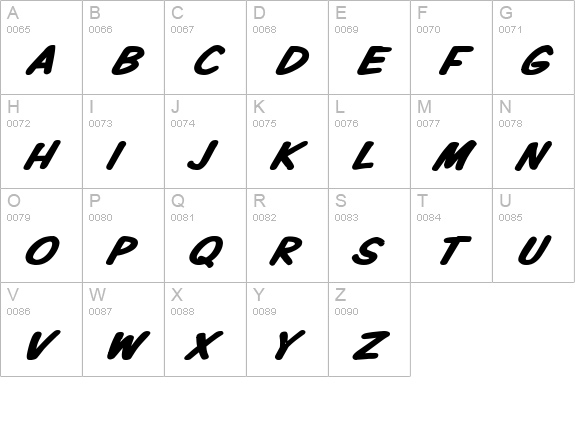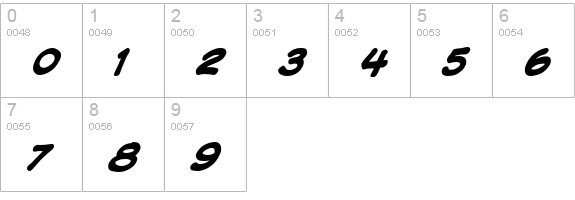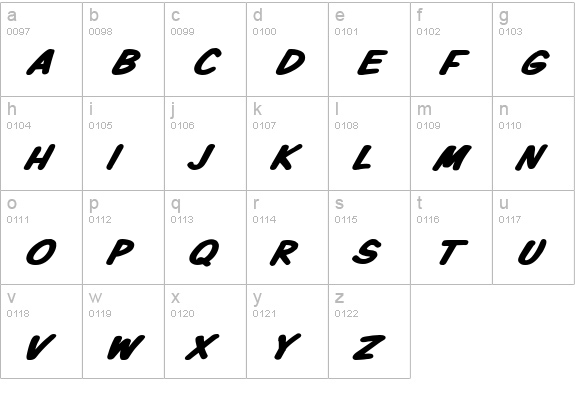
VTCKomixationSCBoldItalic Font Details
VTCKomixationSCBoldItalic font is a captivating and dynamic typeface that adds a touch of playfulness and excitement to any design project. Its bold and italicized structure exudes a sense of energy and movement, making it perfect for headlines, posters, comics, and other creative endeavors. This font's unique combination of boldness and italicization creates a visual impact that is both bold and distinctive. It effortlessly blends the whimsical nature of comic fonts with a touch of sophistication and style, making it suitable for a wide range of design applications. With VTCKomixationSCBoldItalic, you have the freedom to explore your creativity without any limitations. This font is freely available to download at FontsMarket.com, allowing you to easily access it and incorporate it into your projects. Whether you're a graphic designer, illustrator, or simply a typography enthusiast, this font offers endless possibilities for expressing your artistic vision. The attention-grabbing and expressive nature of VTCKomixationSCBoldItalic font makes it an excellent choice for attention-grabbing headlines, eye-catching logos, and engaging social media posts. Its versatility ensures that it can be used in a variety of design styles, from vintage and retro to modern and futuristic. With its bold and italicized form, VTCKomixationSCBoldItalic font injects a sense of personality and character into your designs. Its playful and dynamic appearance instantly draws the viewer's attention, making it an ideal choice for projects that aim to stand out from the crowd. Whether you're creating a comic book, designing a website, or crafting a unique branding identity, VTCKomixationSCBoldItalic font will undoubtedly enhance your designs and leave a lasting impression. Download this font for free at FontsMarket.com and unleash your creativity like never before.